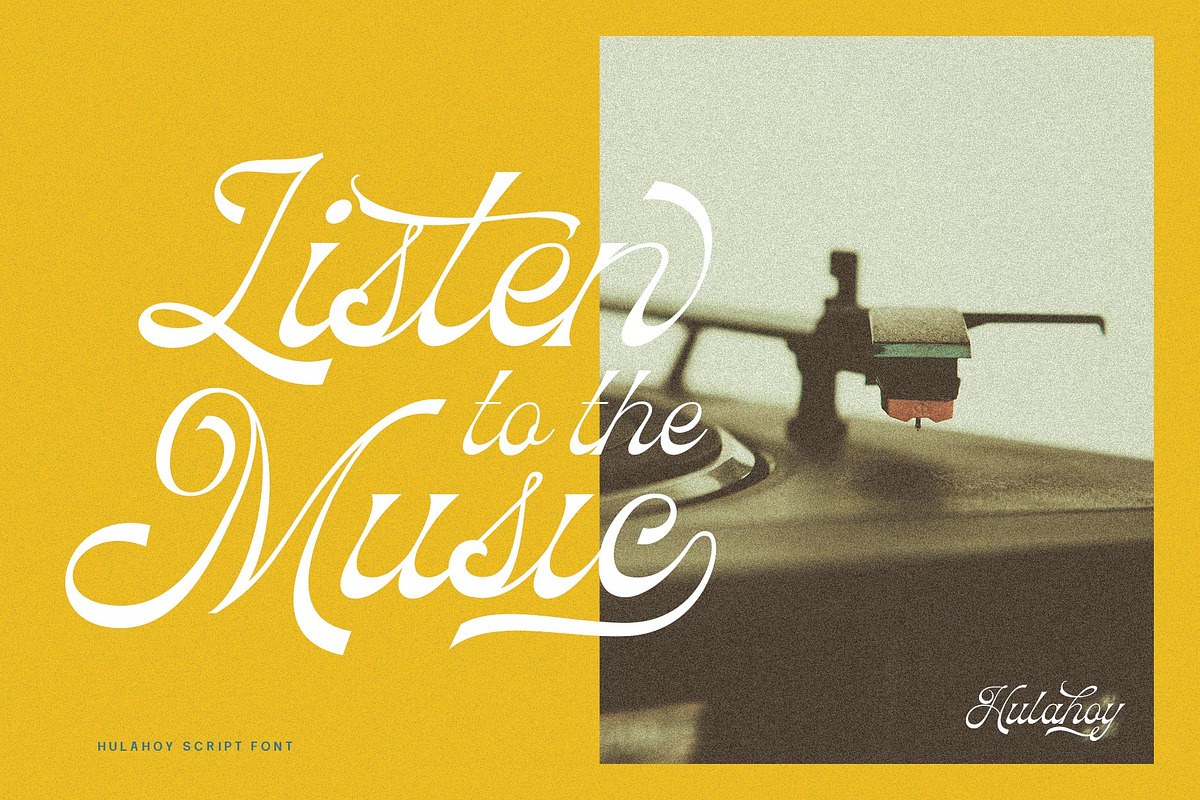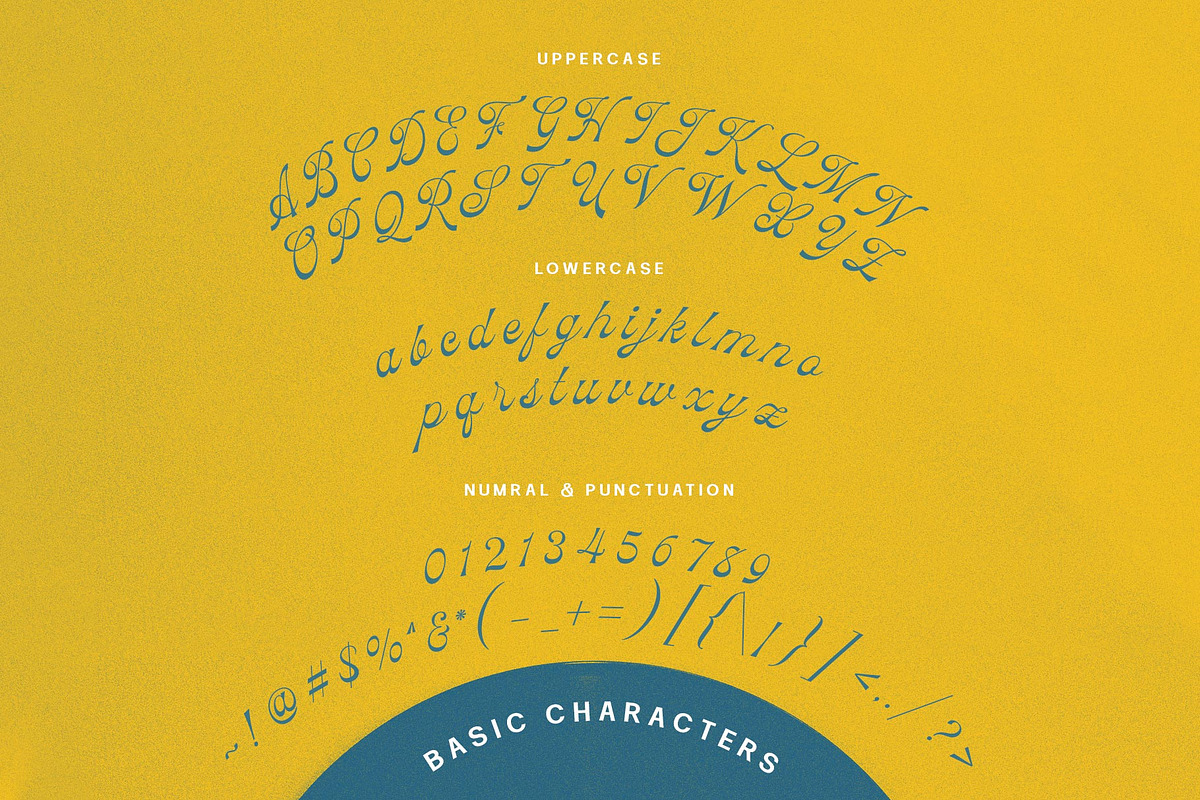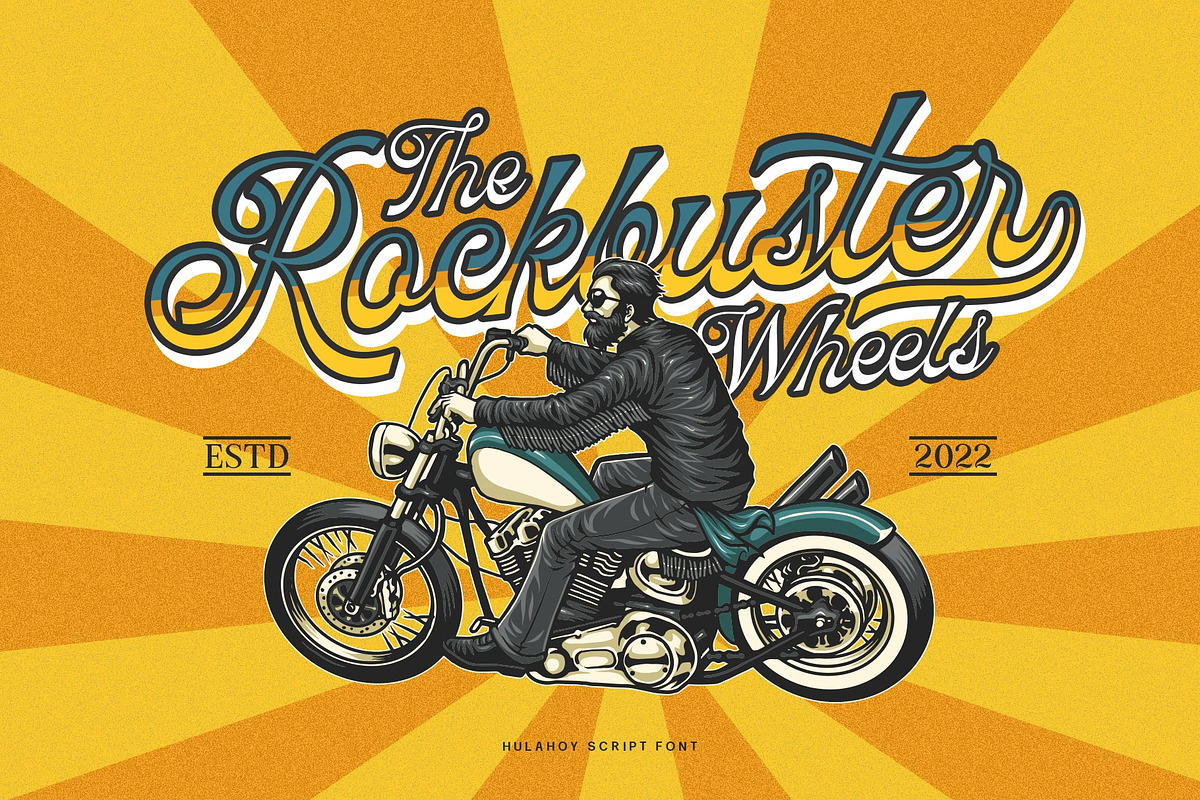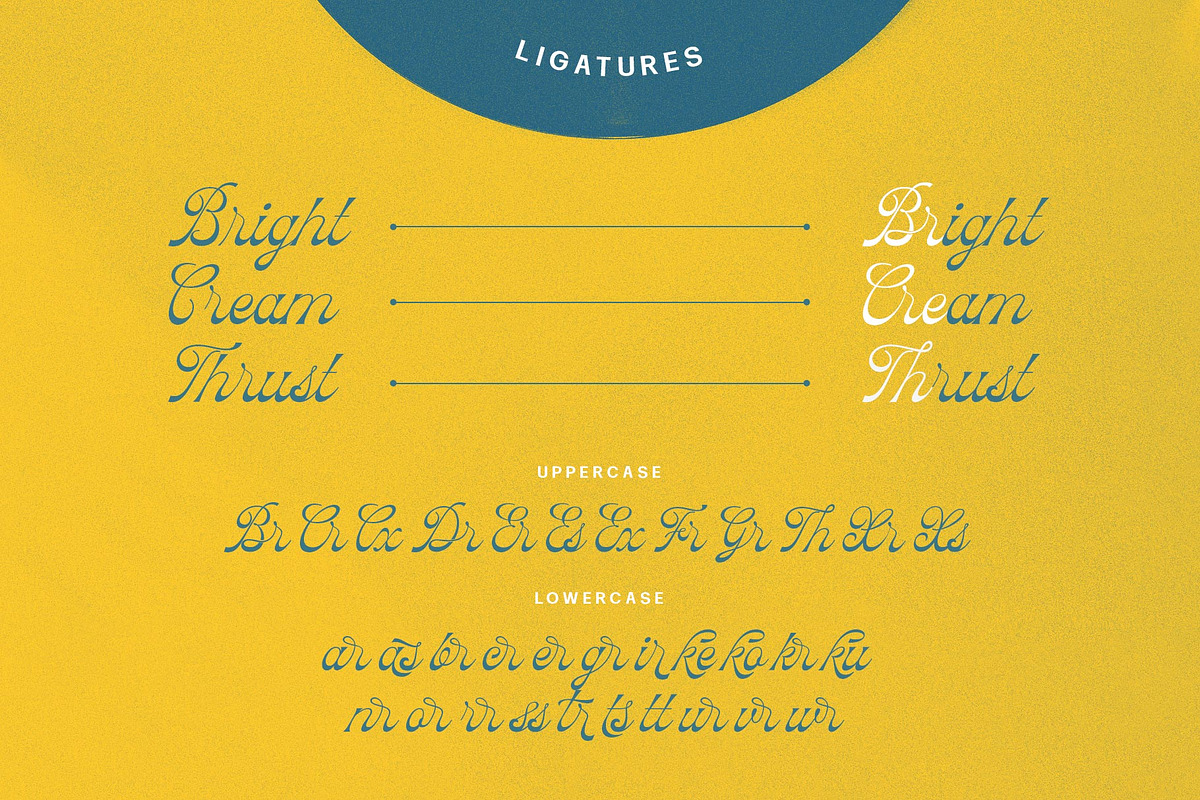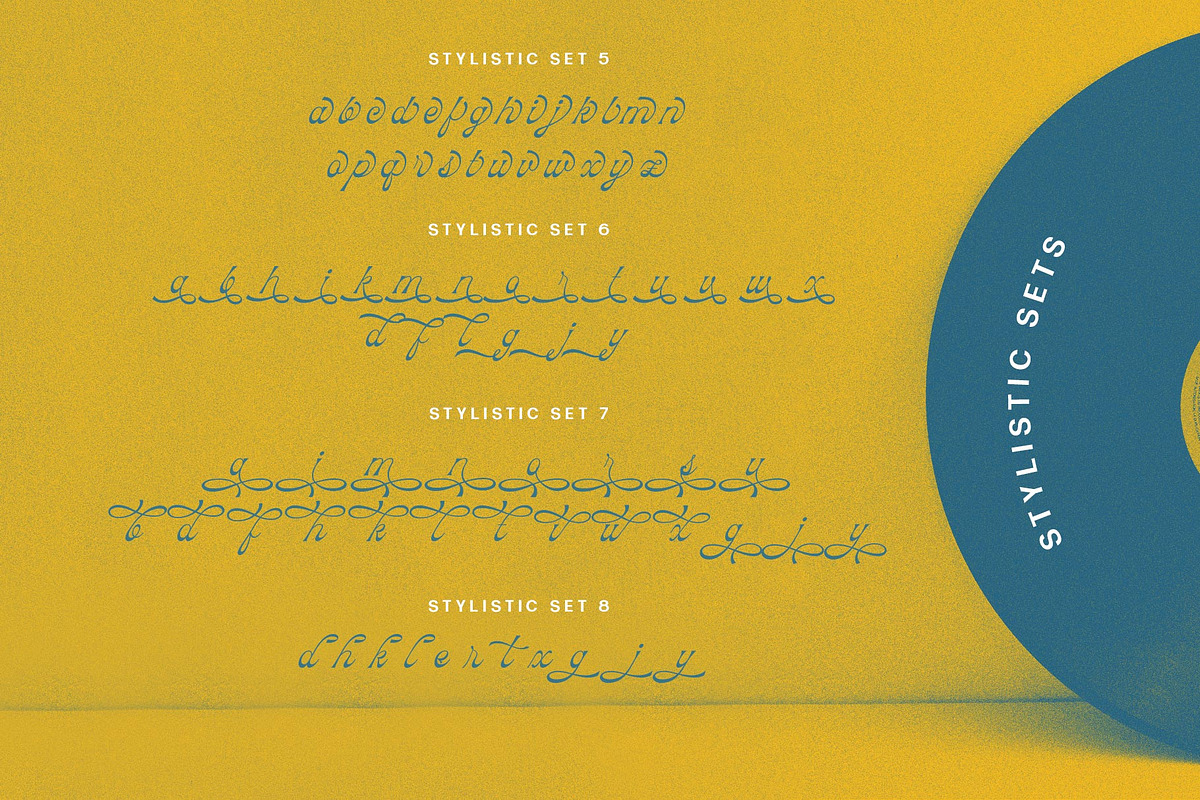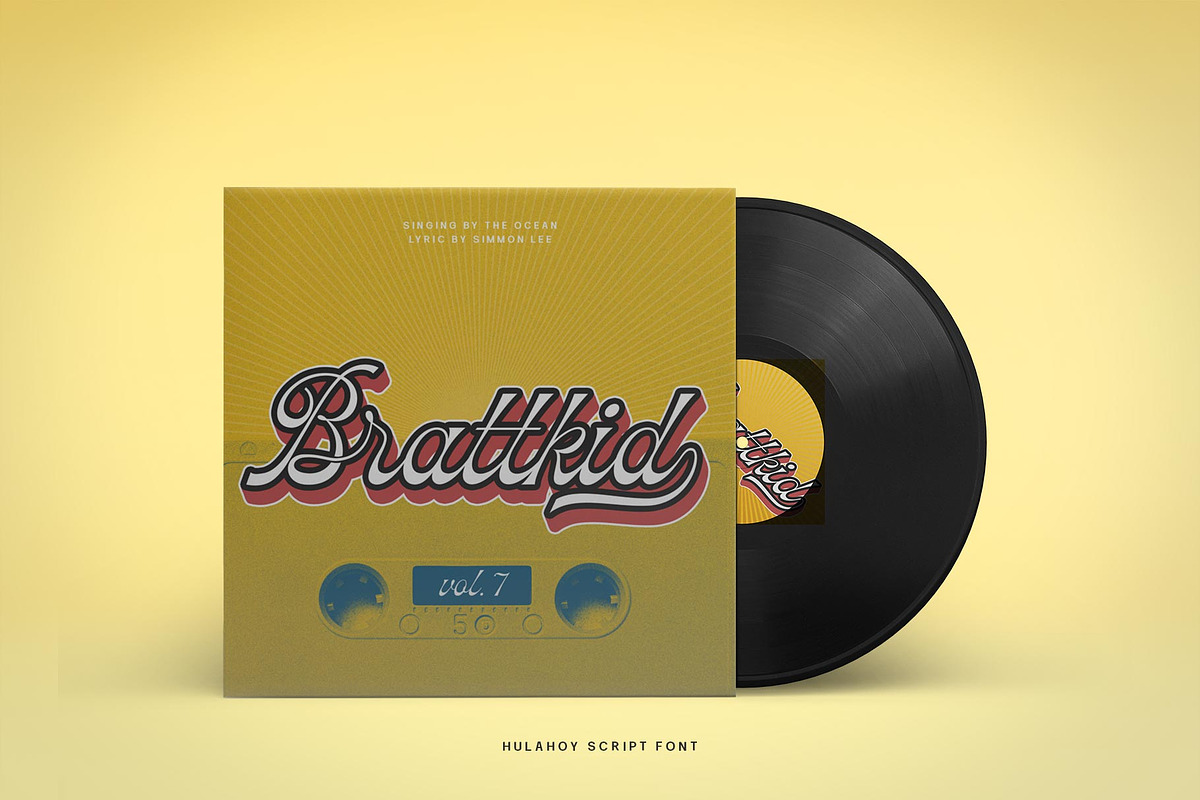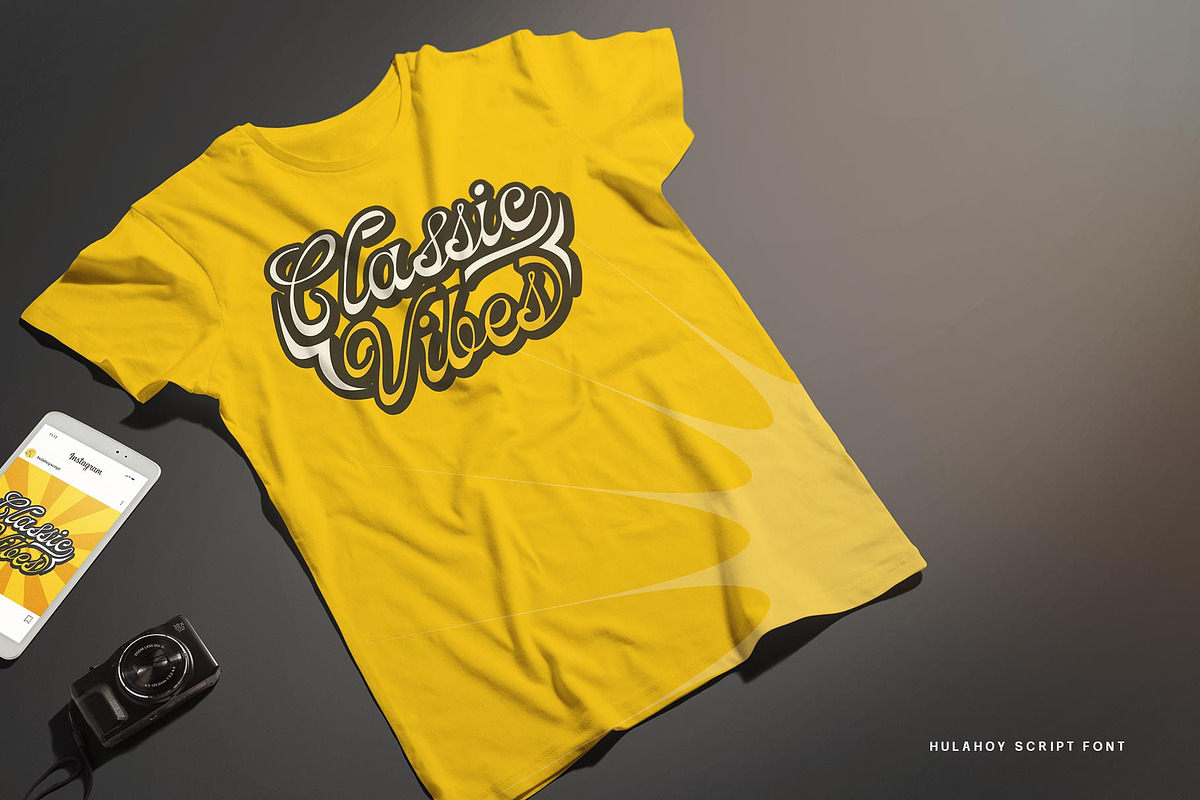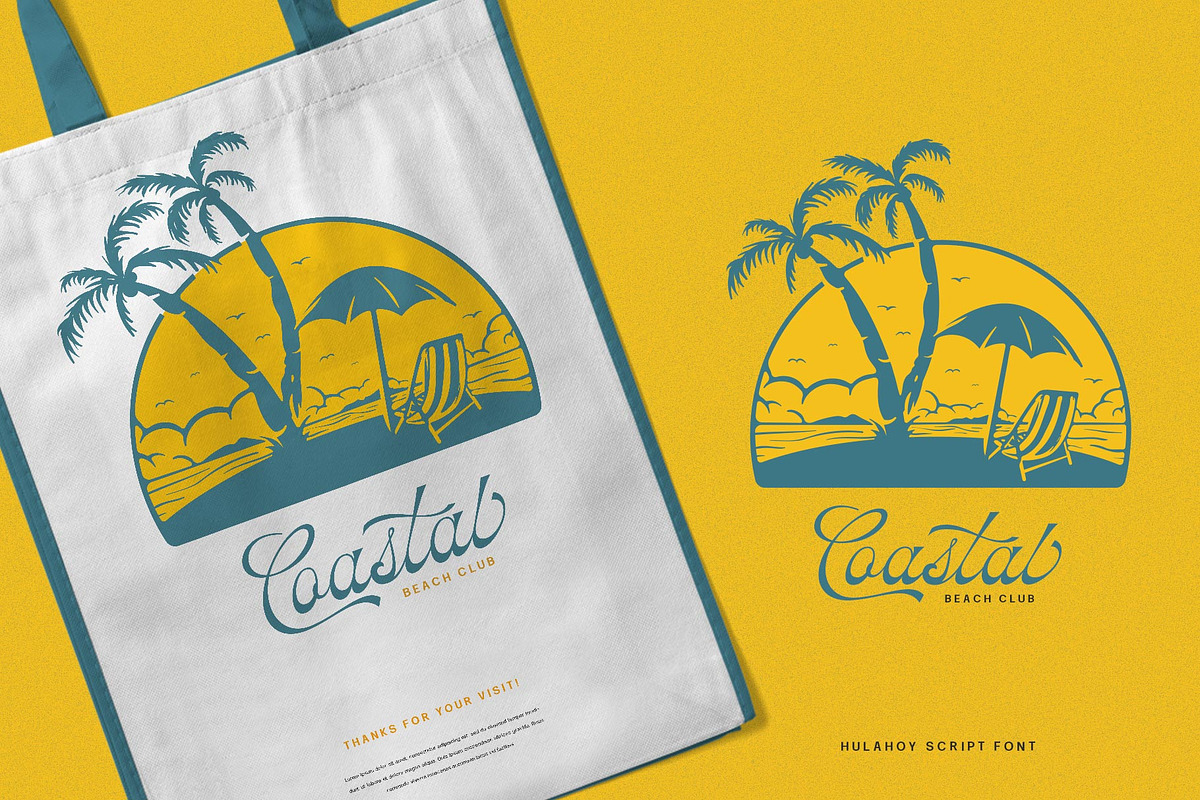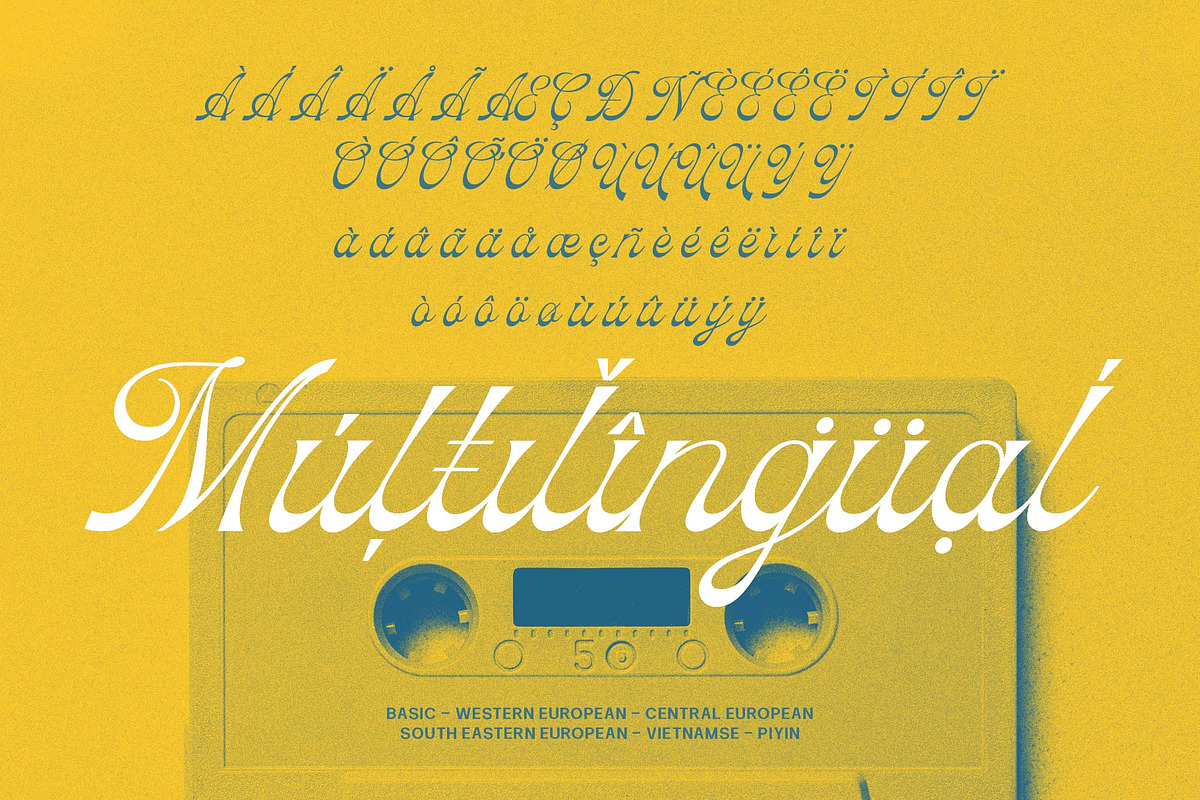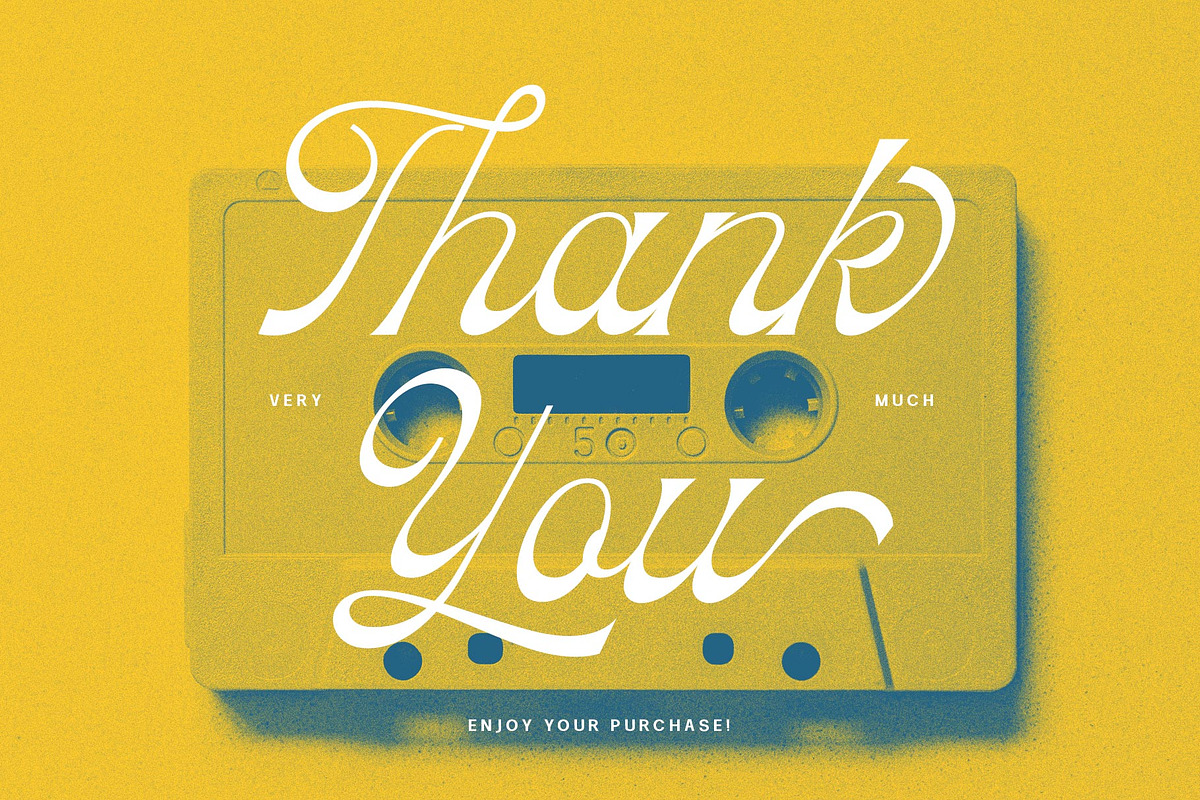
Hulahoy Typeface
Introducing Hulahoy Typeface. This font is inspired by the design styles of the 70s. The style is funny, groovy, classic, not serious but has aesthetic and unique value, besides that the Hulahoy font is very easy to remember and becomes the image of a design.
Hulahoy is very good for being your font collection because this font is very unique and easy to apply to any media that has a design concept that is not so serious, groovy, classic, funny and unique.